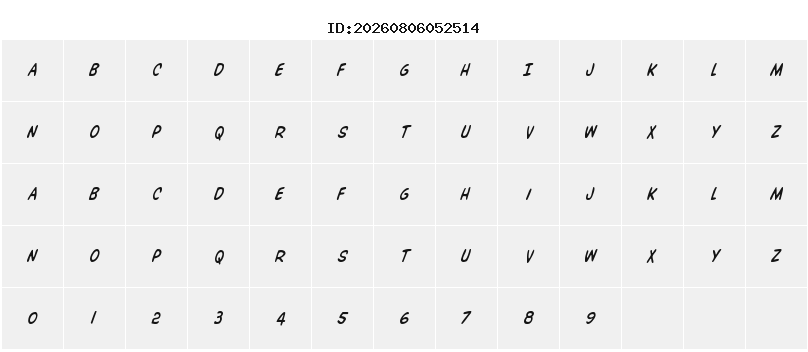
Overstreet Bible Condensed Italic Preview
• Font Name: Overstreet Bible Condensed Italic
• Font Style: Condensed Italic
• Full Font Name: Overstreet Bible Condensed Italic
About Overstreet Bible Condensed Italic.ttf
Overstreet Bible Condensed Italic.ttf is a modern, elegant sans-serif font designed for ultimate readability and visual harmony. Perfect for branding, headlines, web design, and print materials.